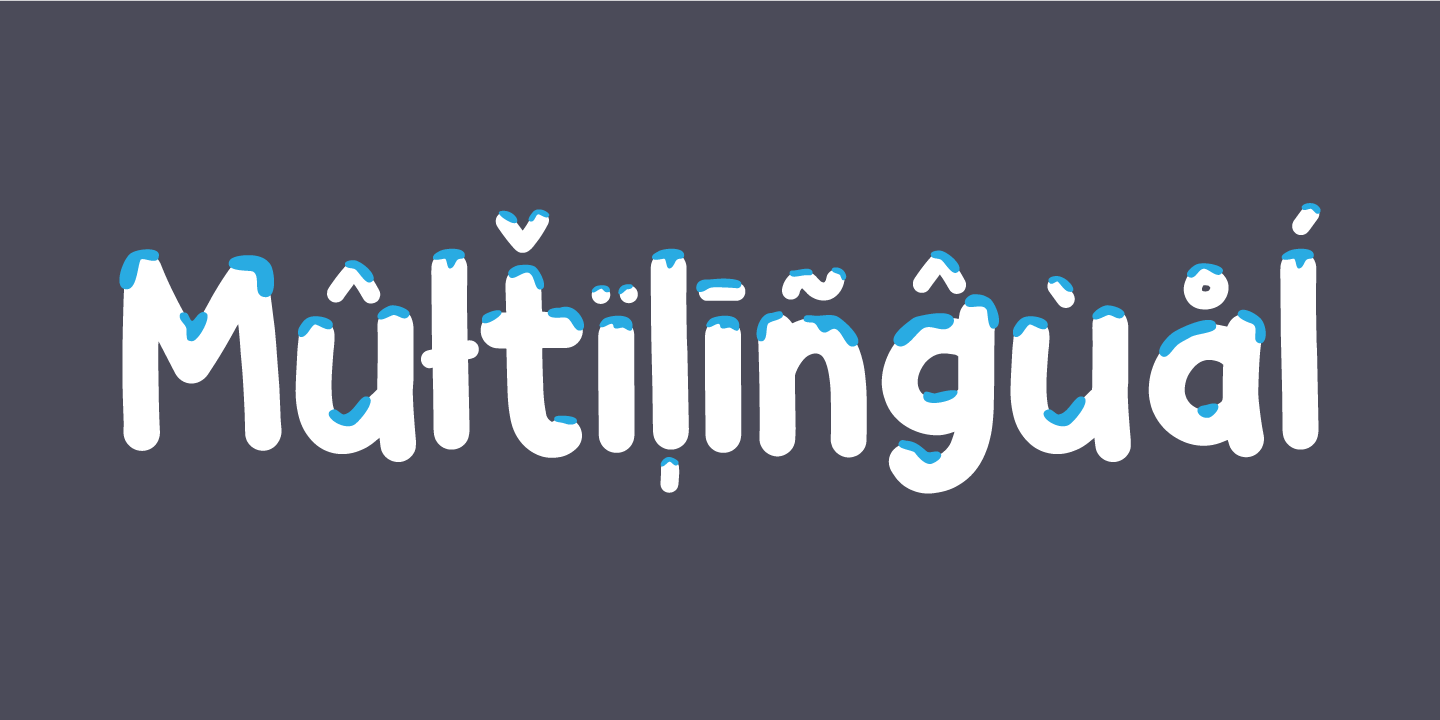
One of the guys Font is perfect for casual sports bar branding, friendly neighborhood businesses, laid-back restaurant signage, buddy group merchandise, relaxed brewery logos, fraternal organization materials, easygoing event graphics, and approachable designs that require genuine camaraderie and down-to-earth friendliness.
This font is exciting because it captures the authentic spirit of genuine friendship and casual camaraderie through its unpretentious letterforms that feel like hanging out with your best buddies. The friendly character design embodies the warmth and reliability of true friendship, making it perfect for brands seeking to create welcoming, inclusive atmospheres where everyone feels like family.
One of the guys Font belongs to the casual friendly font family, featuring approachable styling and buddy elements that enhance its effectiveness for community and friendship-focused design applications.
Whether you're creating neighborhood business branding or friendly community graphics, One of the guys Font Free Download delivers maximum approachability and genuine warmth. This typeface perfectly captures the essence of authentic friendship while maintaining excellent functionality for diverse commercial applications. The font's welcoming presence works beautifully in local business communications, community materials, and friendly marketing campaigns, providing excellent readability while maintaining its buddy character that transforms any design with genuine camaraderie and creates memorable neighborhood experiences across all media platforms and community communications.